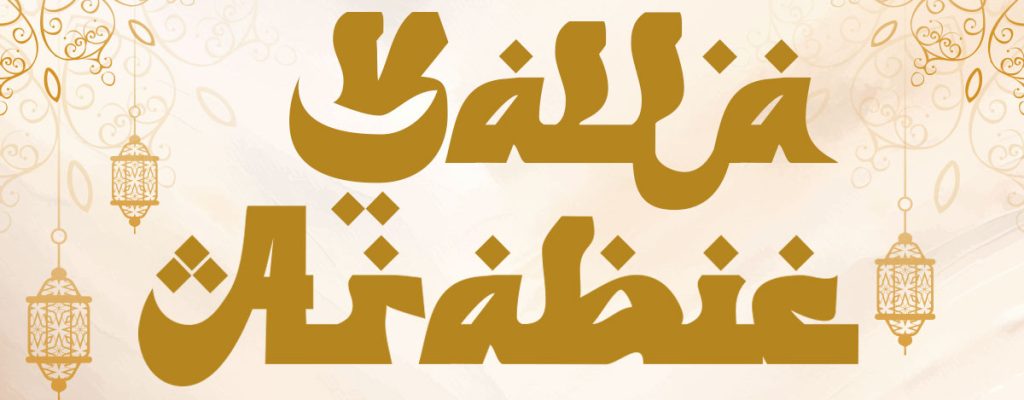
Yalla Arabic – Classic Arabic Display Font
Yalla Arabic is a sophisticated typeface that blends the elegance of traditional Arabic calligraphy with modern design sensibilities. Perfect for cultural and historical projects, this display font maintains high legibility, making it ideal for headlines, titles, and signage.